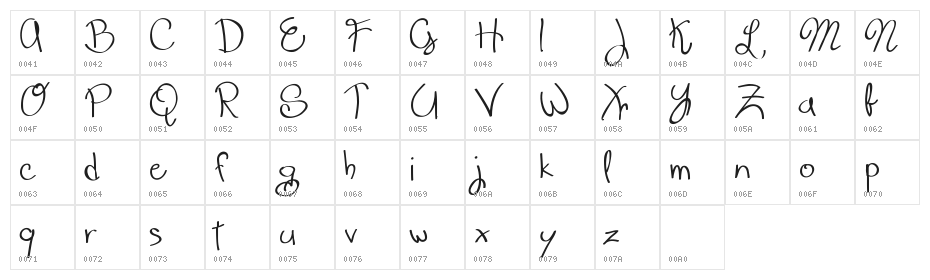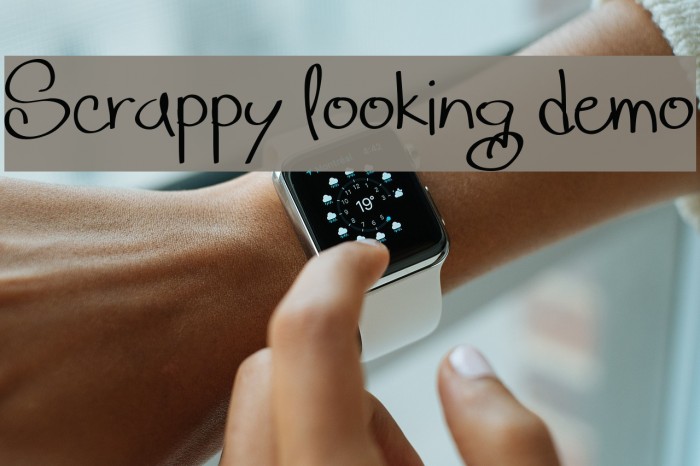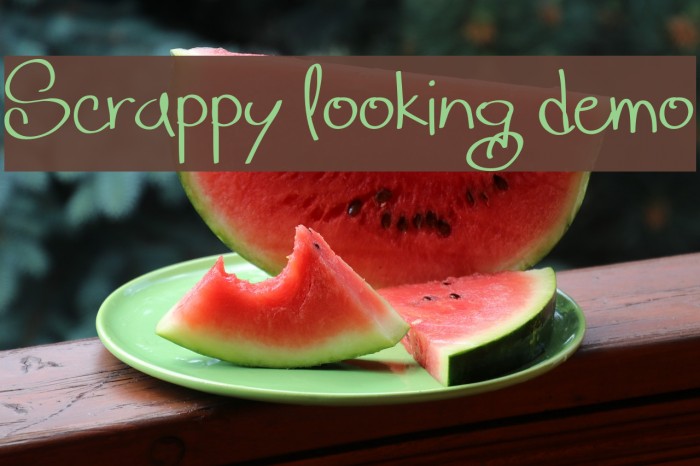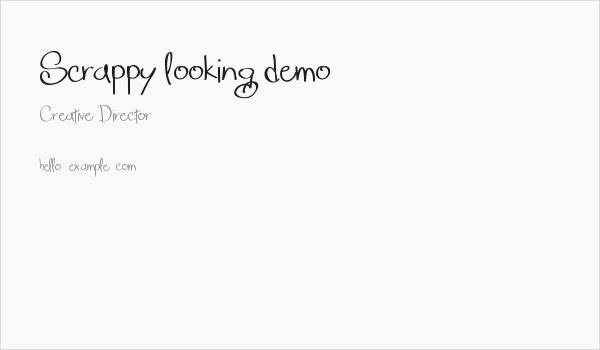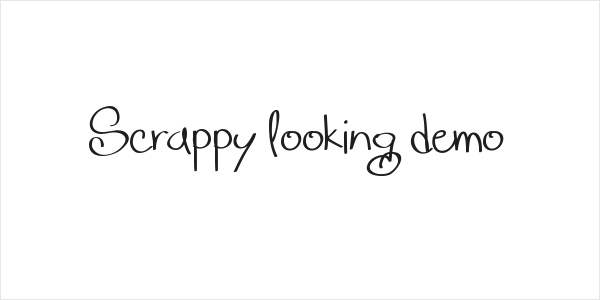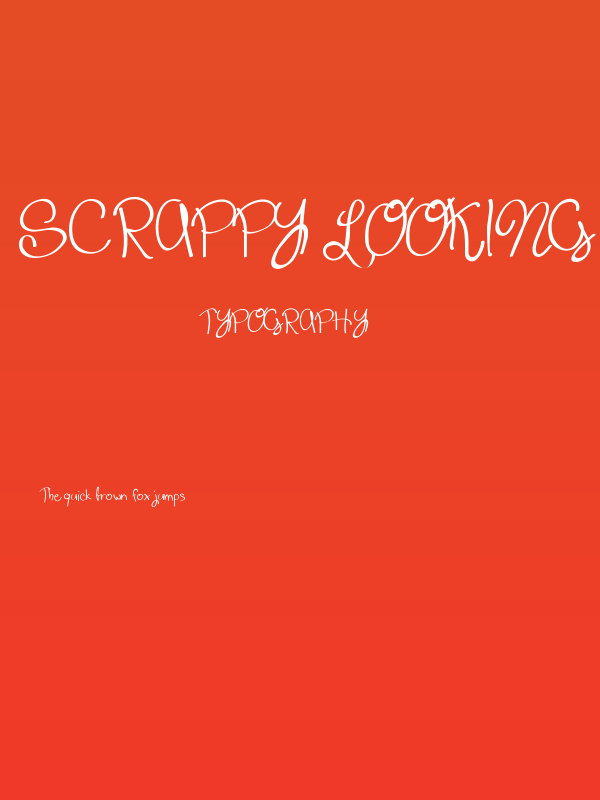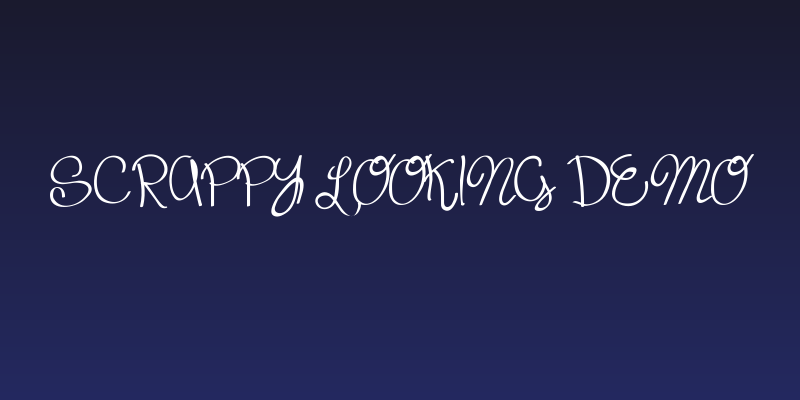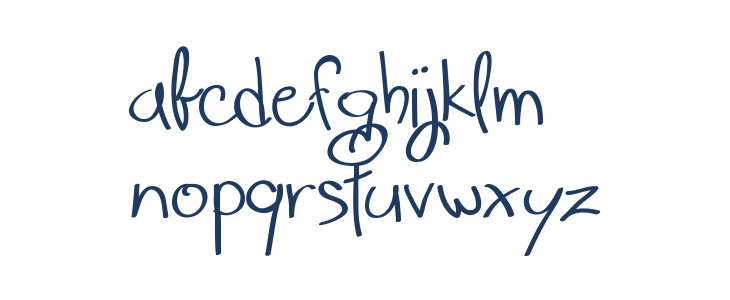
Scrappy looking demo Font
Scrappy looking demo Description
This font features a playful and whimsical style, characterized by its flowing, cursive-like letters. The uppercase letters exhibit a unique blend of curves and loops, giving them a lively and dynamic appearance. The lowercase letters maintain this energetic style, with some letters featuring exaggerated loops and swirls. The overall design is informal and artistic, making it suitable for creative projects. The font's strokes are consistent in width, providing a balanced look despite its decorative nature. This font is ideal for projects that require a touch of personality and flair.
| Proposed Projects | Perfect for greeting cards, invitations, children's book covers, and playful branding. |